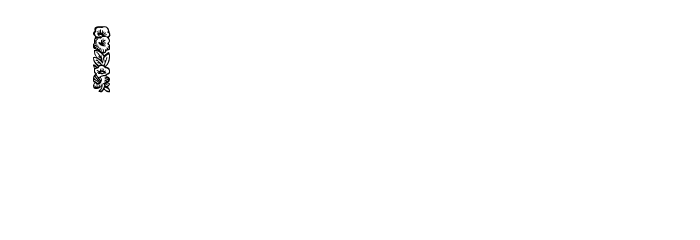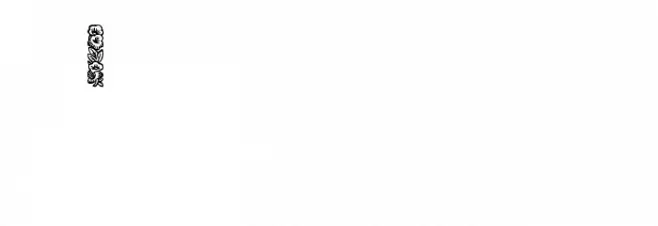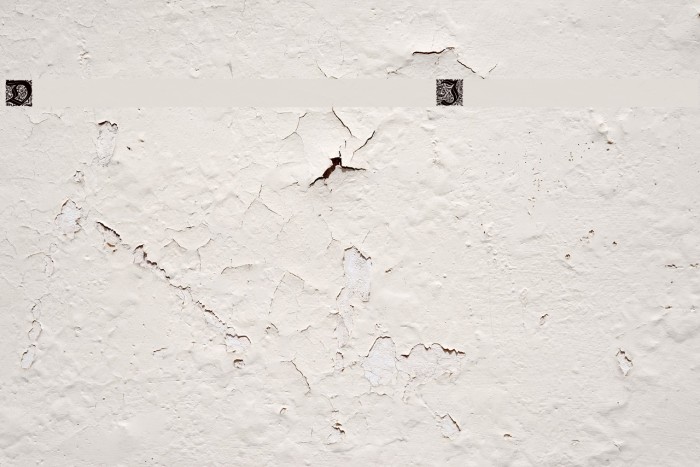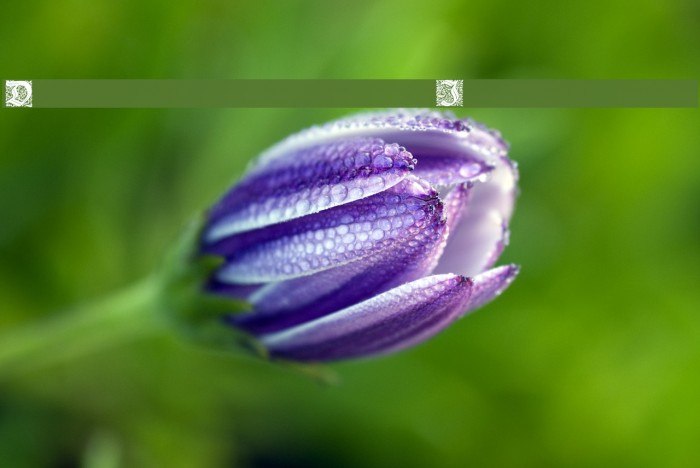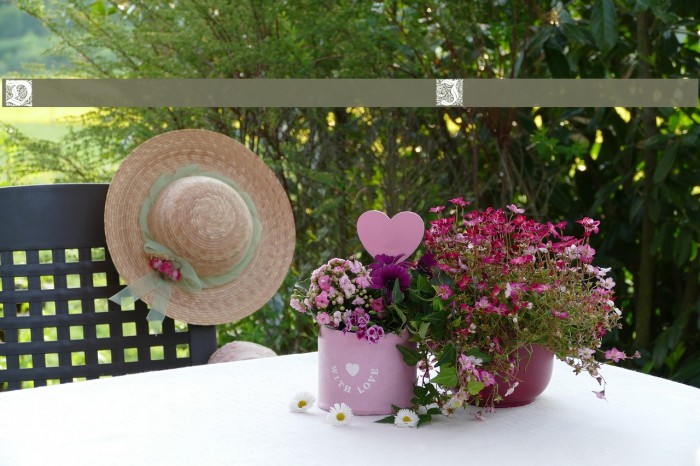
This font features an ornate and decorative style, characterized by intricate floral and vine-like patterns within each letter. The uppercase letters are highly embellished, creating a sense of elegance and sophistication. The design is reminiscent of historical or vintage typography, often seen in illuminated manuscripts or classical book covers. Each character is enclosed in a square, adding a structured and uniform appearance to the overall design. The intricate details make it suitable for decorative purposes rather than body text, as the embellishments may affect readability at smaller sizes.
Ornate decorative font with intricate floral patterns in each letter from Uncategorized fonts.
- Proposed Projects: Ideal for use in wedding invitations, vintage-themed posters, book covers, and decorative signage.
- Overall Style: Vintage
- Use Case: Logos, Headlines, Decorative elements